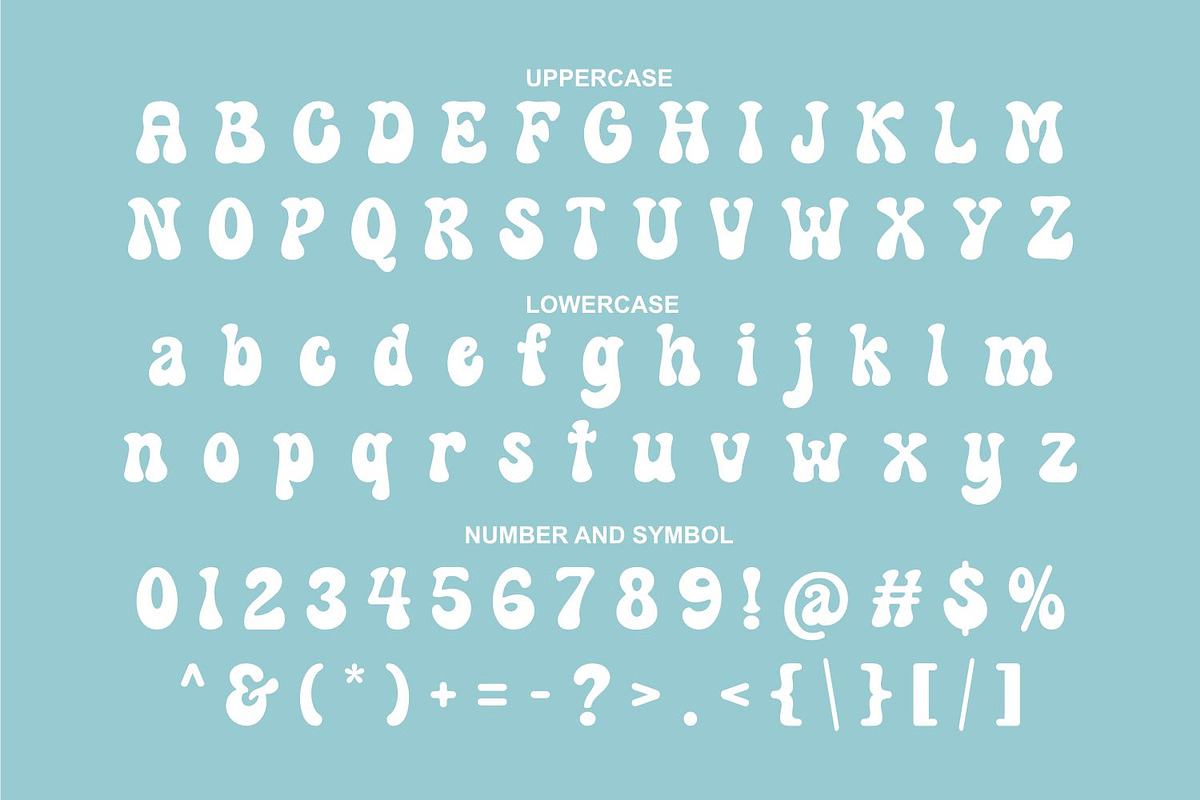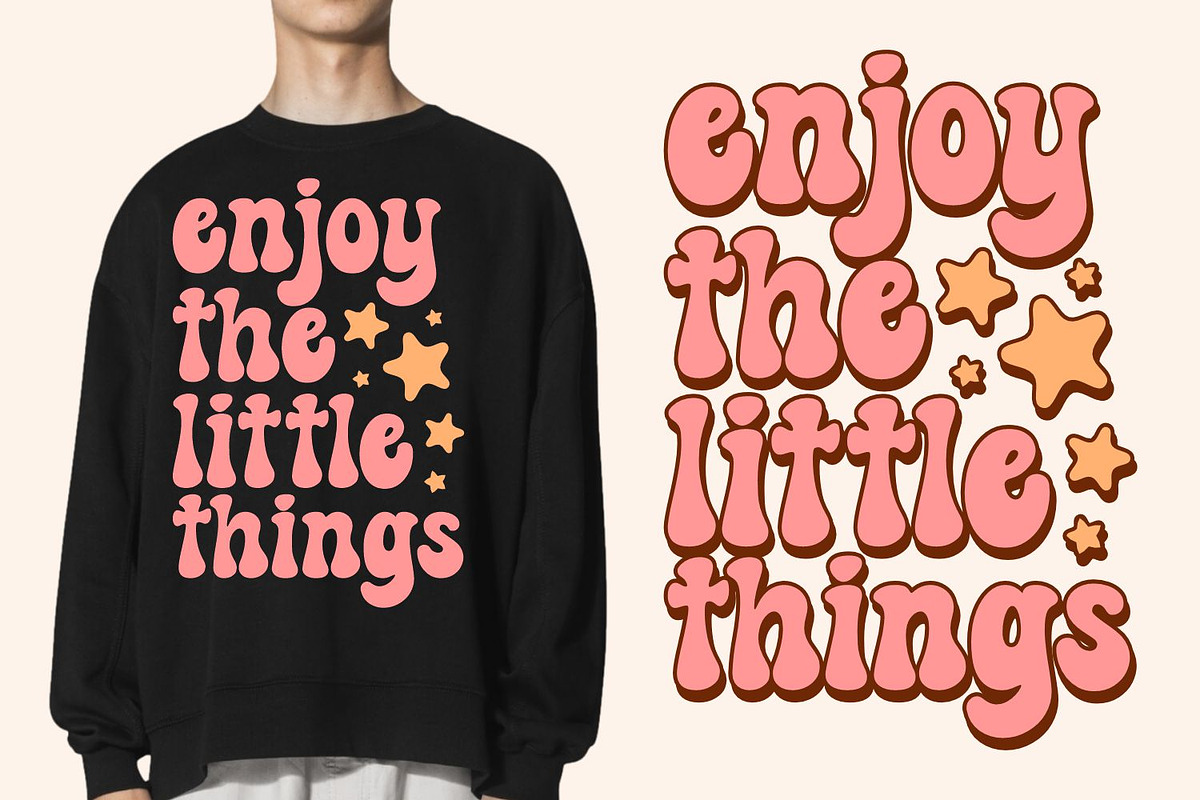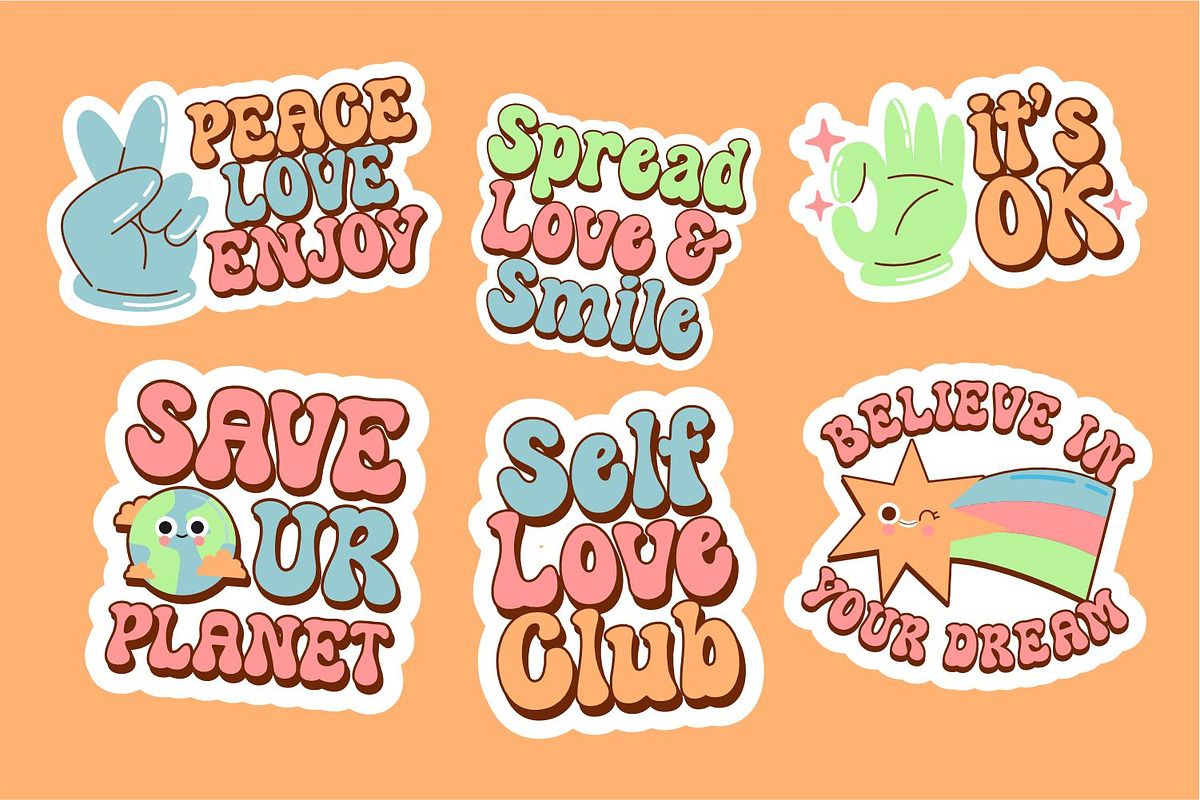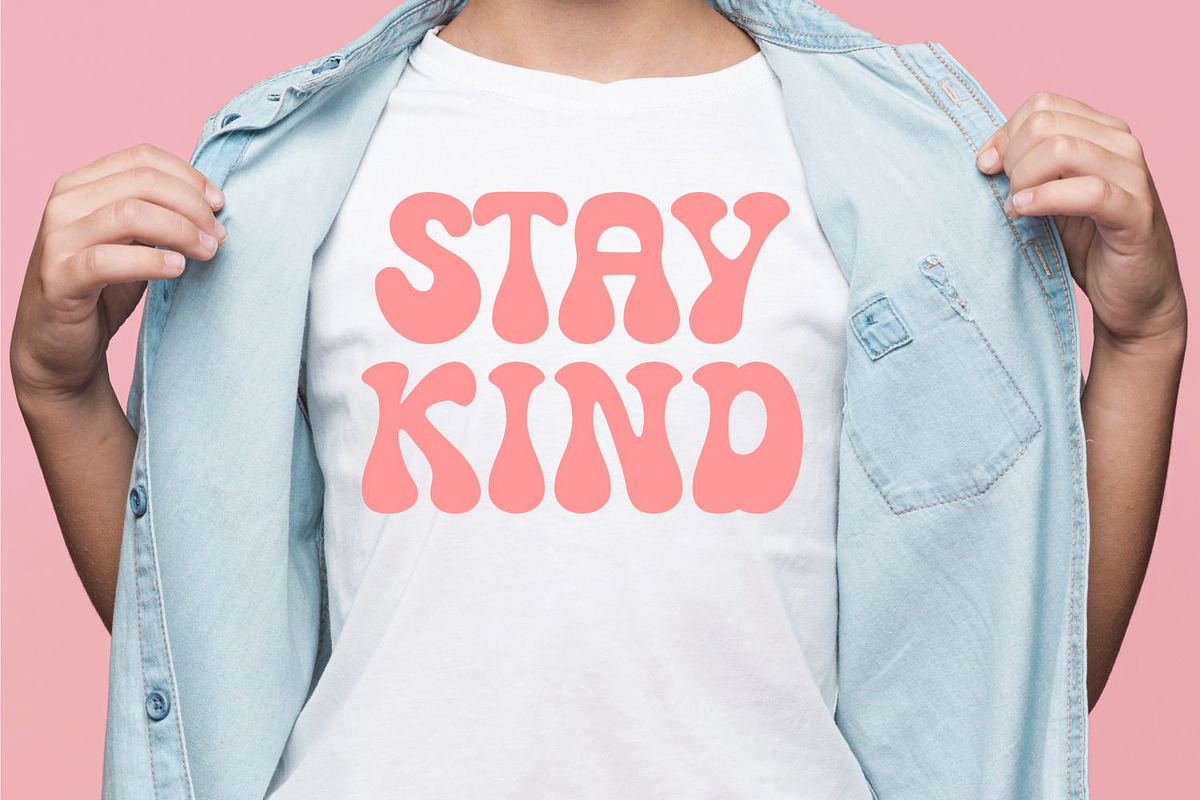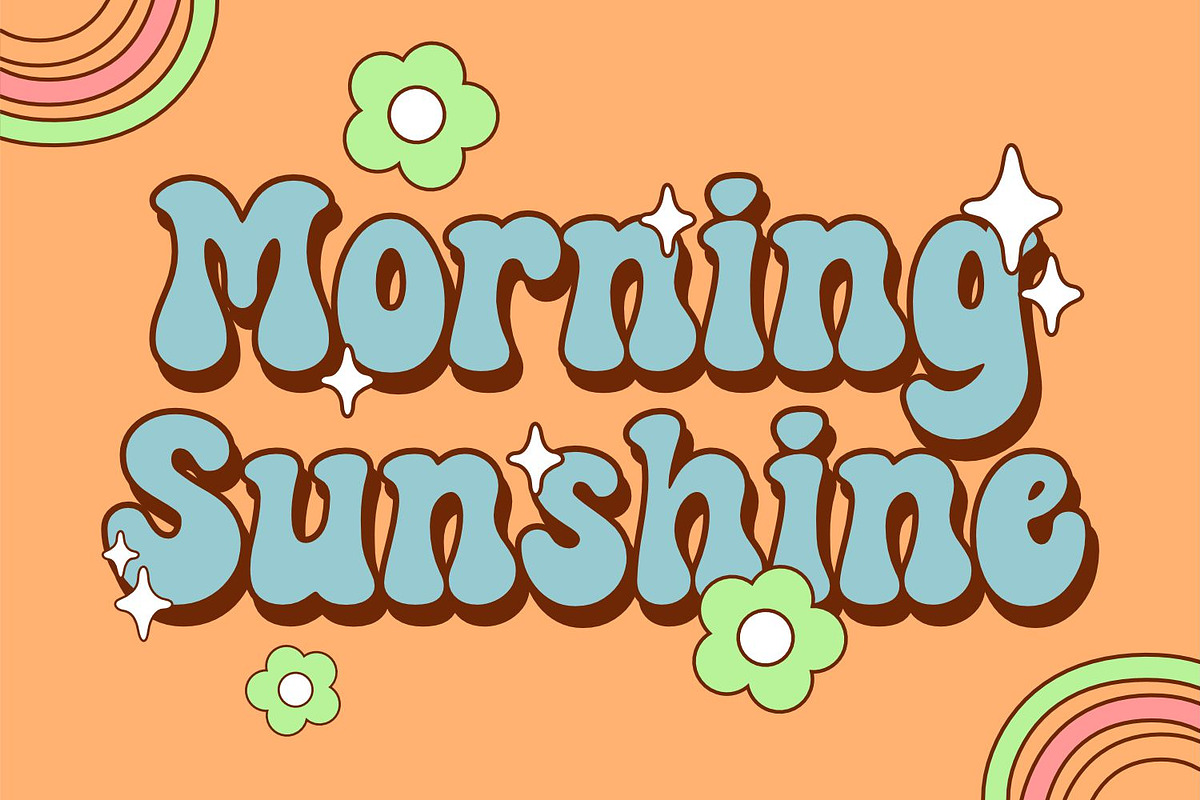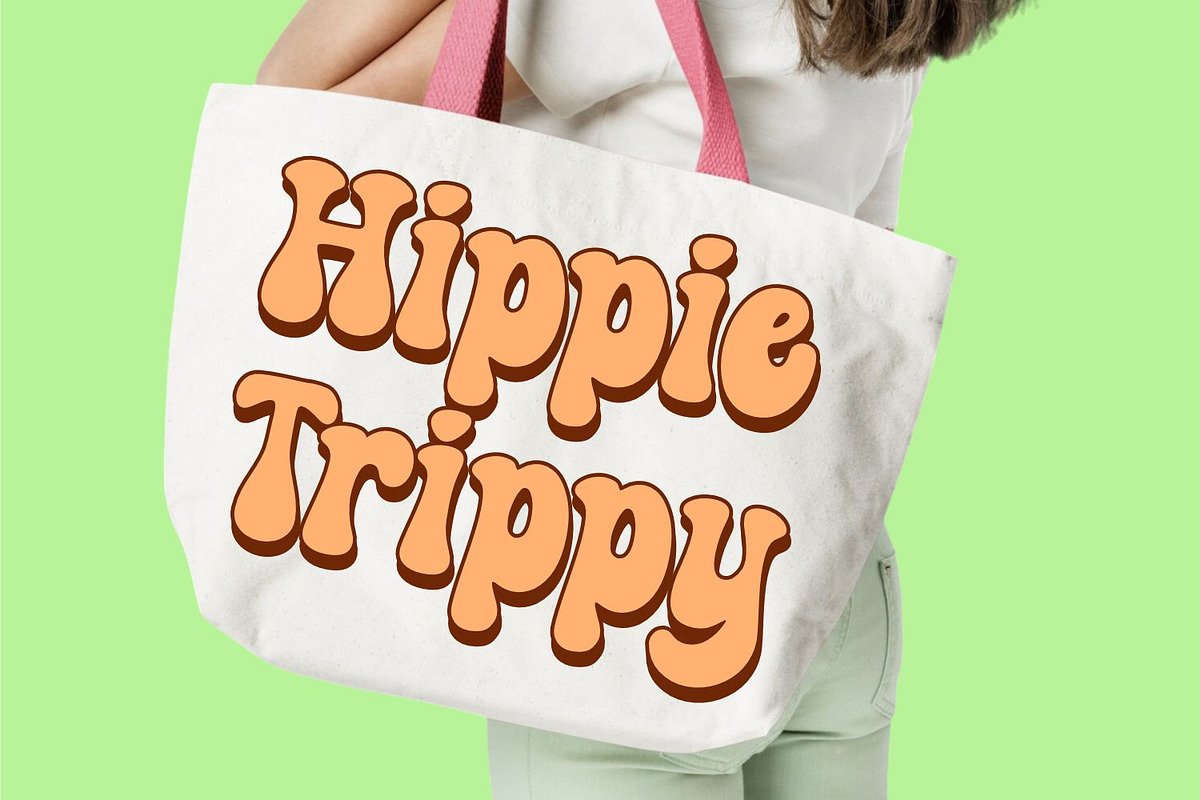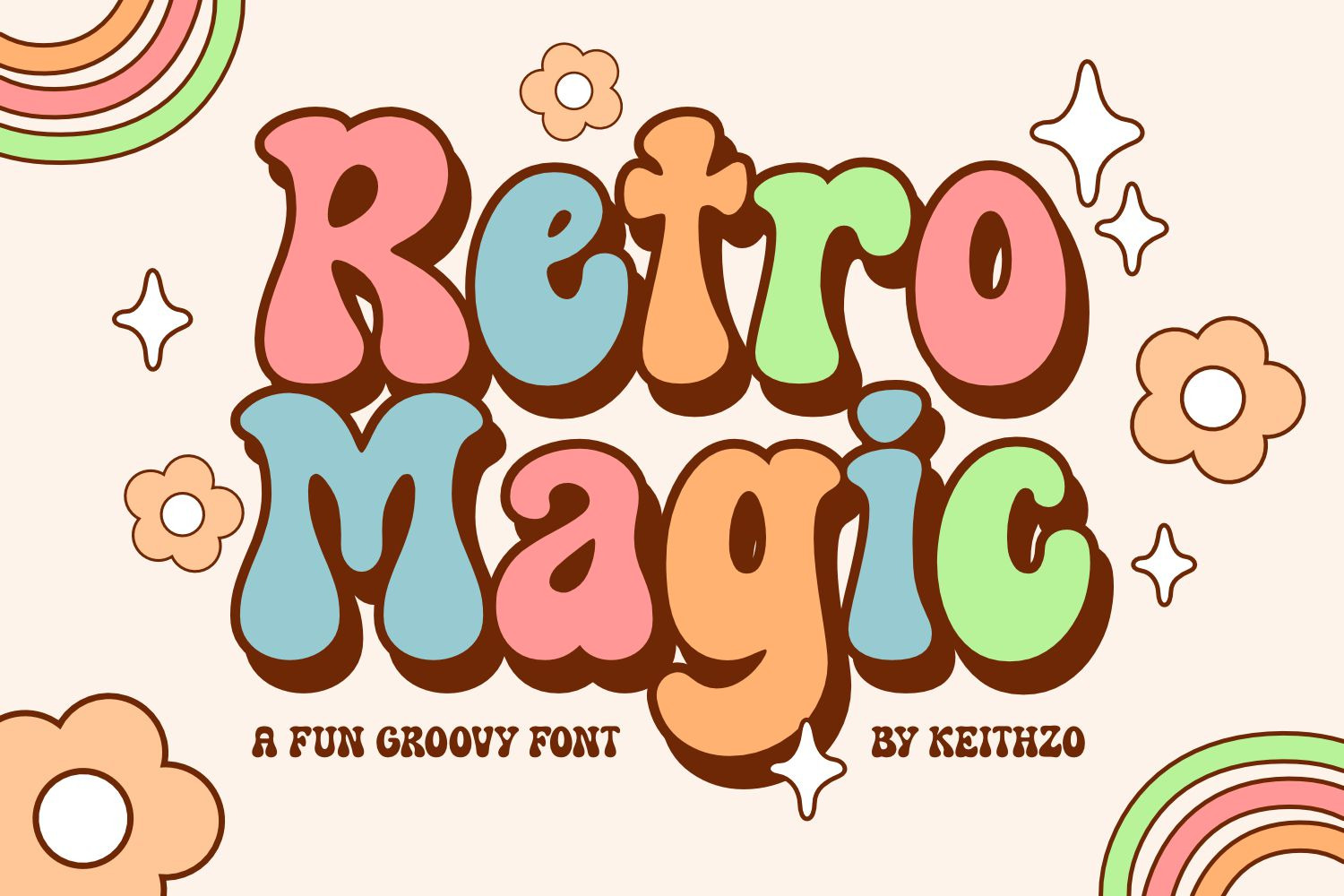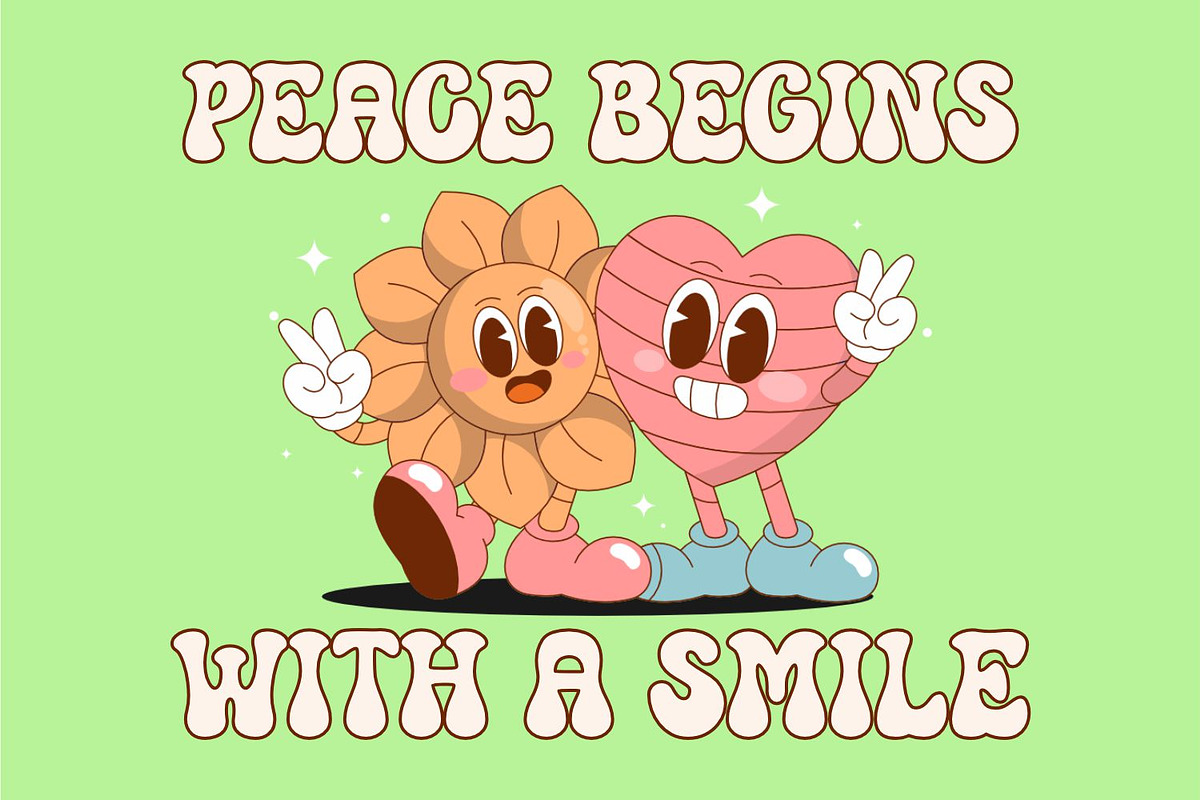
Retro Magic - Retro Font
Retro Magic is a versatile, stylish, and playful retro display font perfect for a wide spectrum of applications such as greeting cards, headlines, and many more! Add it to any of your creative projects, and it will give them a romantic and exquisite feel.